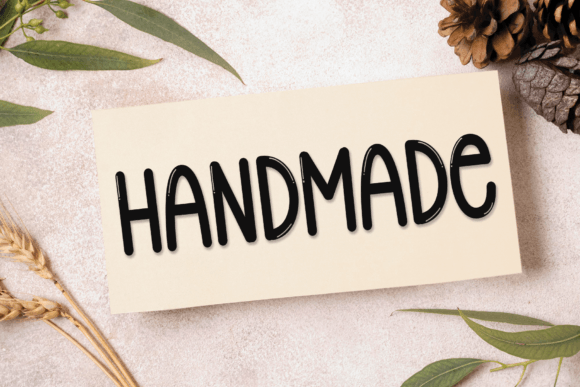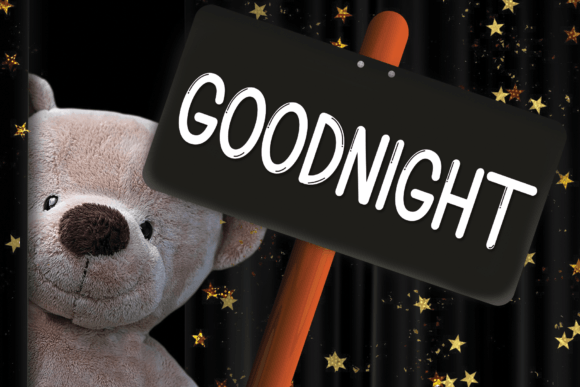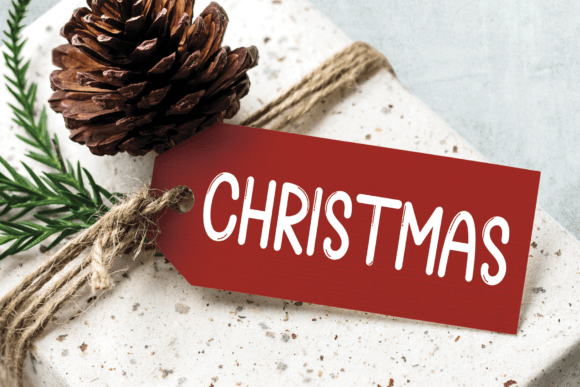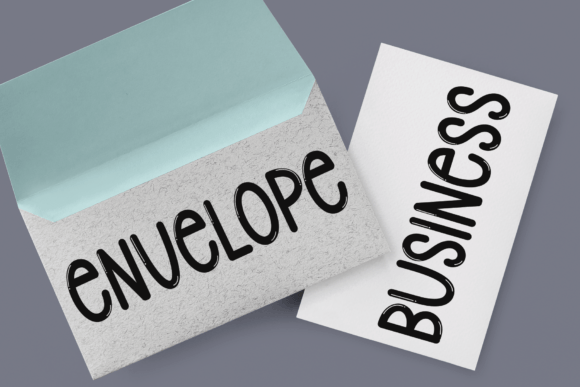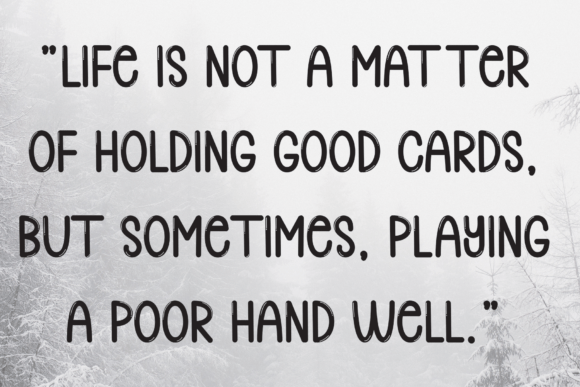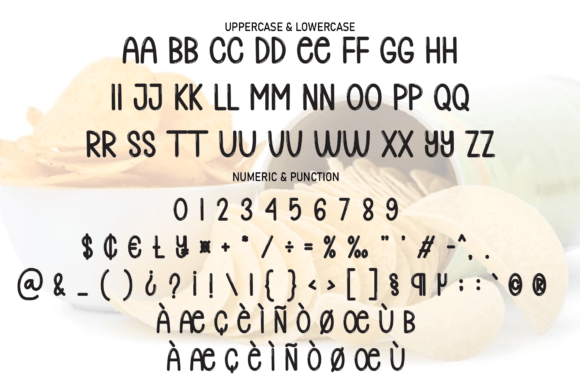
Bites Font: Elevate Your Designs with a Neat, Casual, and Friendly Handwritten Font
Are you tired of using the same old fonts in your designs? Do you want to add a personal touch to your creations? Look no further than Bites Font, a beautiful handwritten font that’s perfect for designers and crafters alike. In this article, we’ll take a closer look at Bites Font, its features, and how it can elevate your designs.
What is Bites Font?
Bites Font is a neat, casual, and friendly handwritten font that’s perfect for a wide range of design projects. Whether you’re creating a logo, brochure, or social media graphic, Bites Font is an excellent choice. Its unique and charming lettering style is sure to capture the attention of your audience and leave a lasting impression.
Features of Bites Font
Bites Font has several features that make it an excellent addition to your font library. Some of its key features include:
• Handwritten style: Bites Font has a beautiful handwritten style that’s perfect for creating personal and friendly designs.
• Neat and casual: The font has a neat and casual feel that’s perfect for a wide range of design projects.
• Unique lettering style: Bites Font has a unique lettering style that’s sure to capture the attention of your audience.
• Easy to read: The font is easy to read, making it perfect for body text and headings.
Benefits of Using Bites Font
Using Bites Font in your designs can have several benefits. Some of the benefits include:
• Adds a personal touch: Bites Font adds a personal touch to your designs, making them more relatable and engaging.
• Versatile: The font is versatile and can be used for a wide range of design projects, from logos to brochures.
Who Can Use Bites Font?
Bites Font is perfect for a wide range of designers and crafters, including:
• Graphic designers: Graphic designers can use Bites Font to create beautiful and unique designs for their clients.
• Crafters: Crafters can use Bites Font to create handmade cards, scrapbook pages, and other craft projects.
• Small business owners: Small business owners can use Bites Font to create professional-looking designs for their business.
• Bloggers: Bloggers can use Bites Font to create beautiful and engaging blog posts.
Bites Font is a beautiful handwritten font that’s perfect for designers and crafters alike. Its unique and charming lettering style is sure to capture the attention of your audience and leave a lasting impression. With its neat, casual, and friendly style, Bites Font is an excellent addition to your font library. Whether you’re creating a logo, brochure, or social media graphic, Bites Font is sure to elevate your designs.